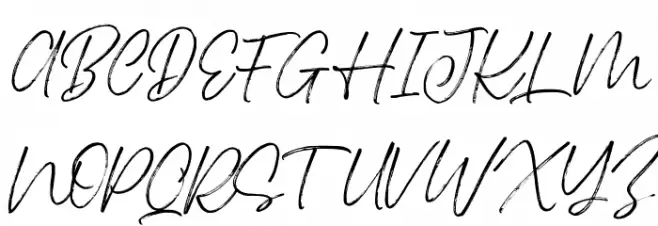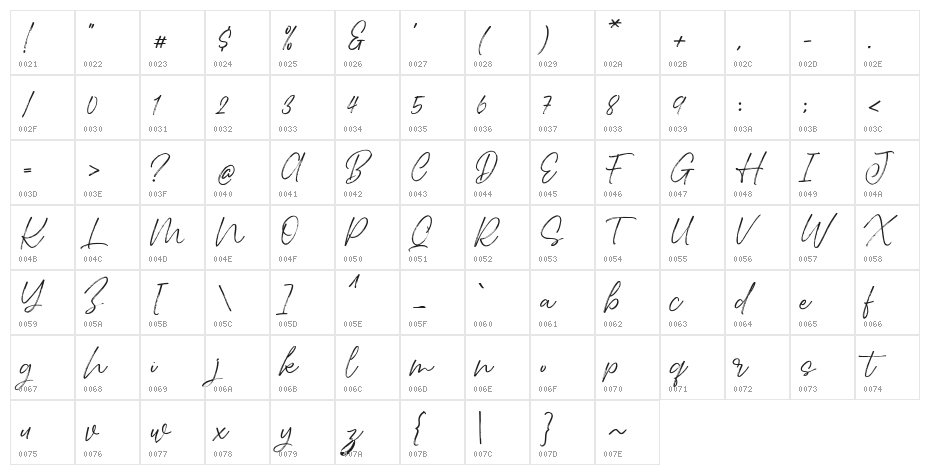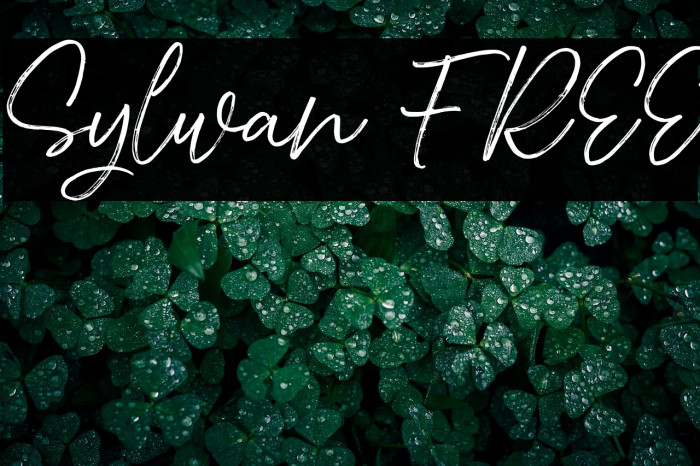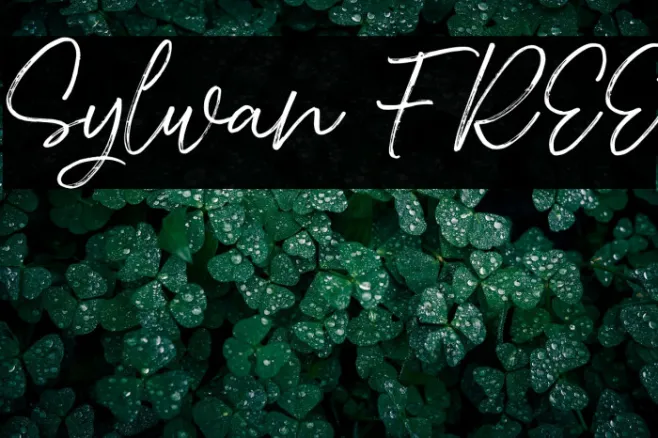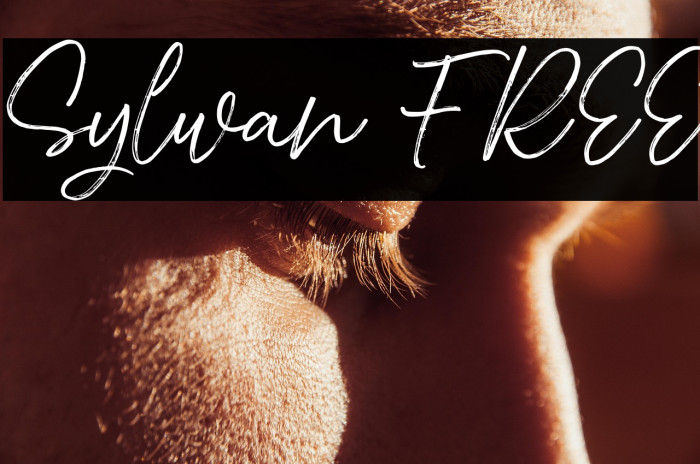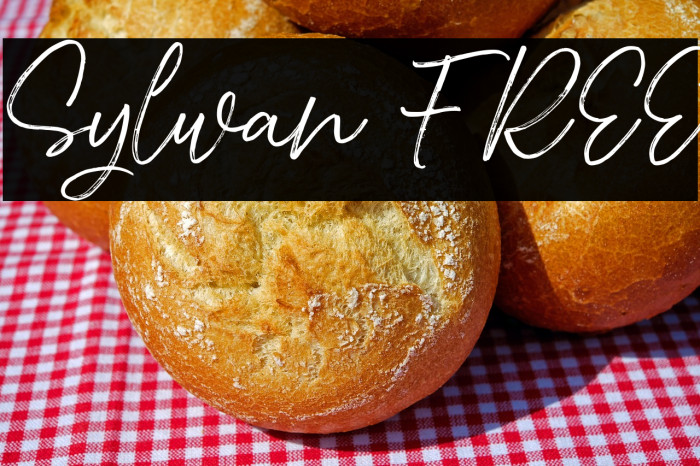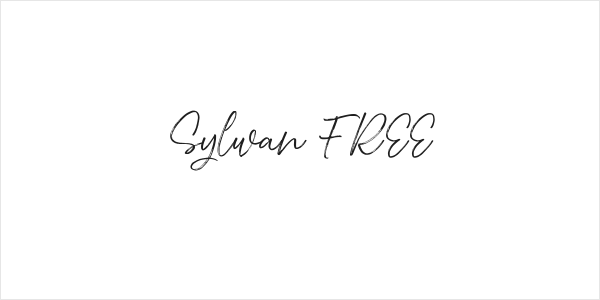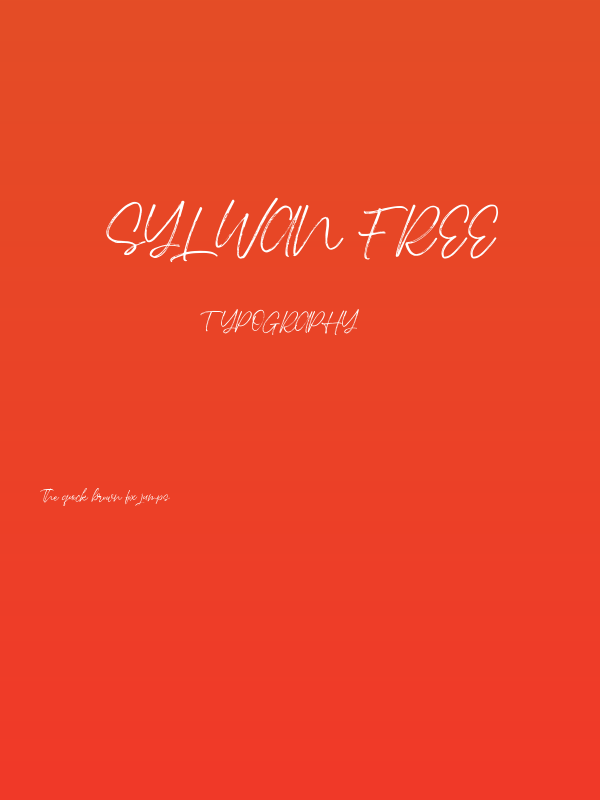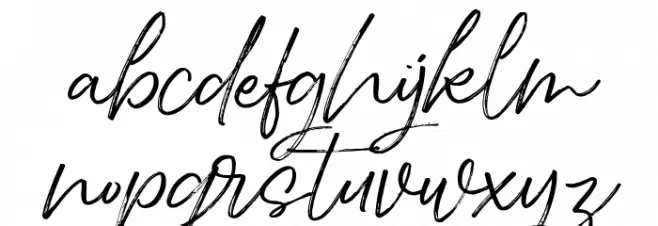
Sylwan FREE Font
Sylwan FREE Description
A handwritten script font with a casual and flowing style, featuring varying stroke thickness and a slightly rough texture.
| Overall Style | Casual, Artistic |
| Use Case | Logos, Headlines, Invitations |
| Proposed Projects | Greeting cards, invitations, personal branding. |